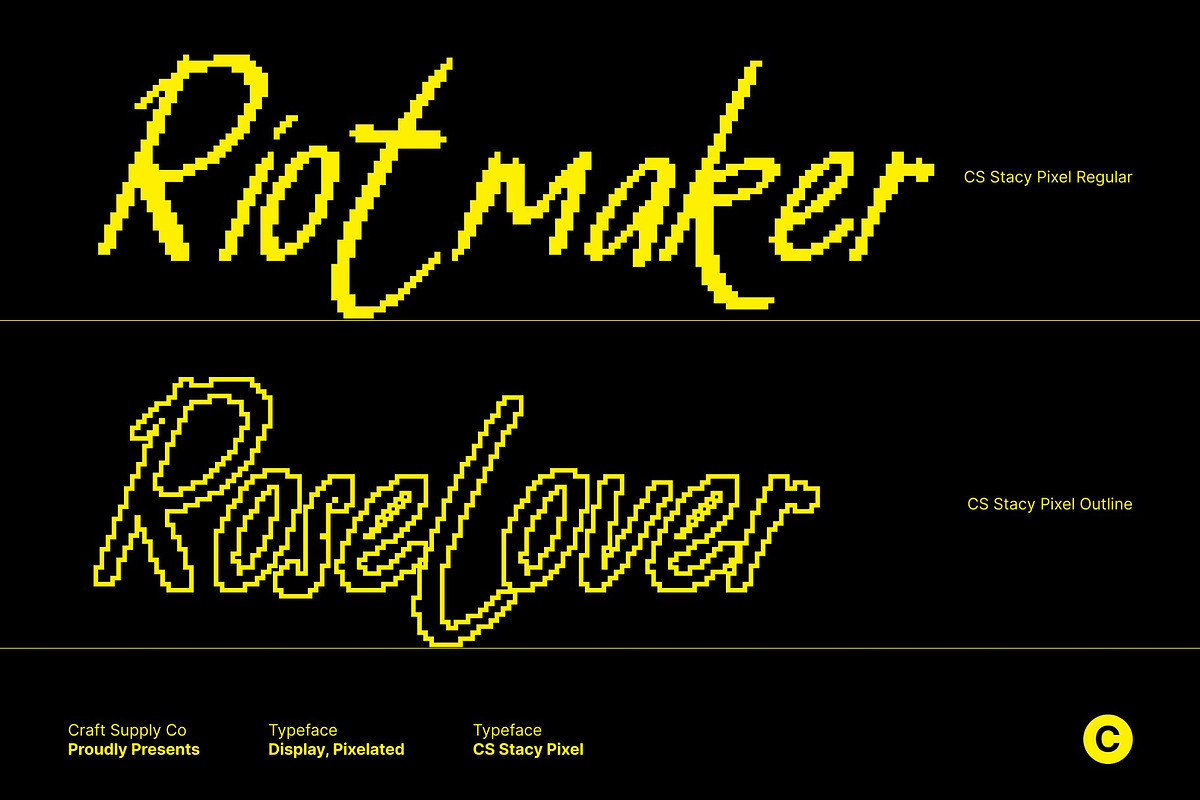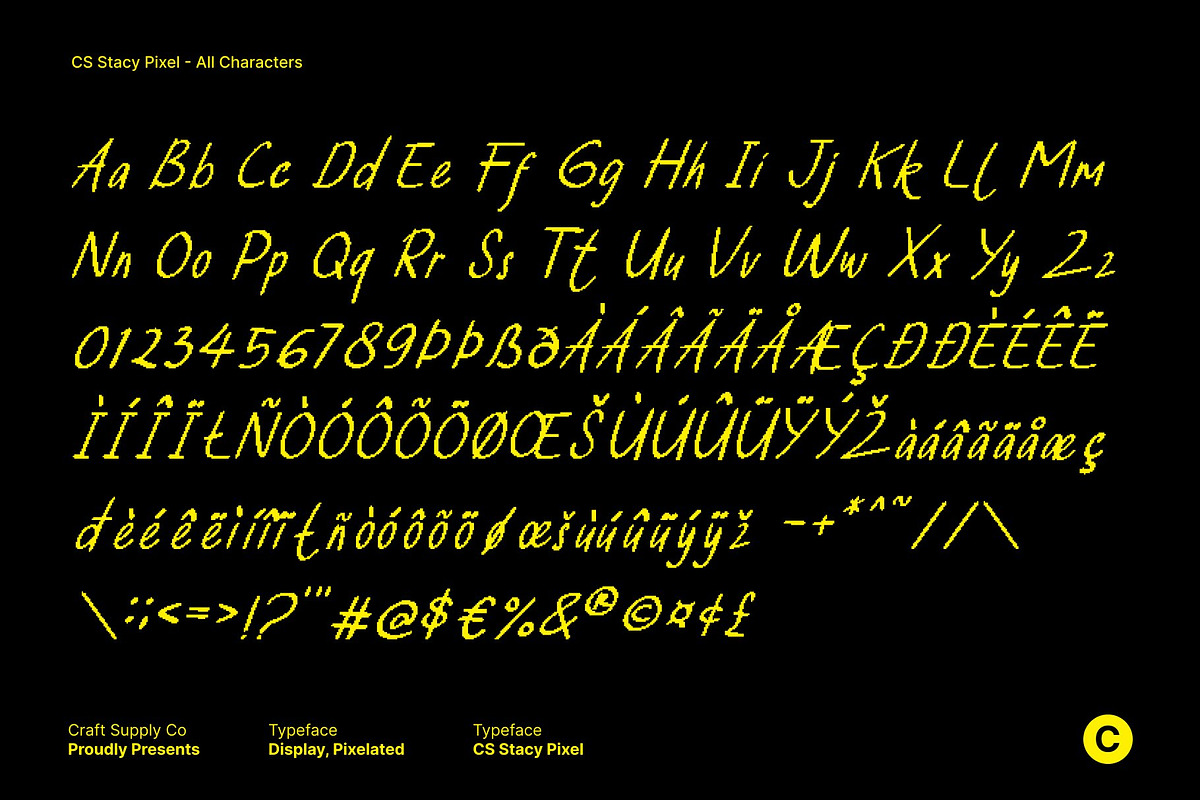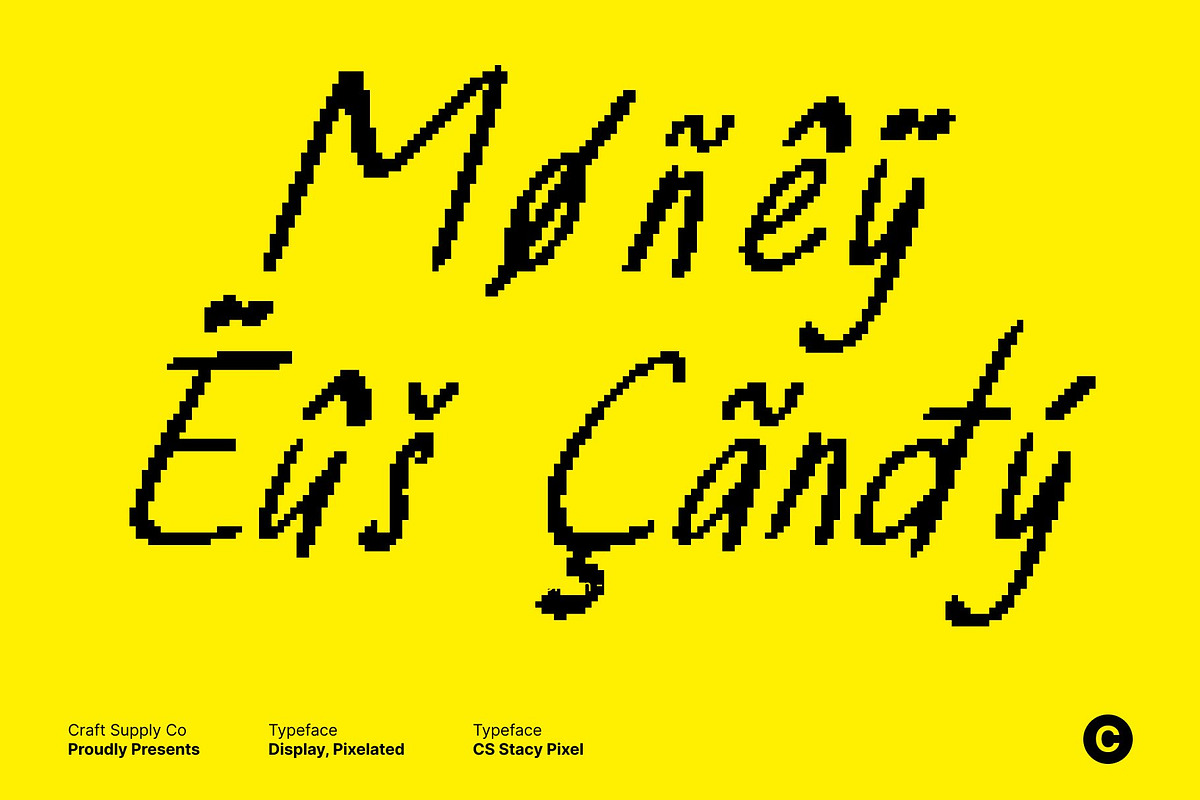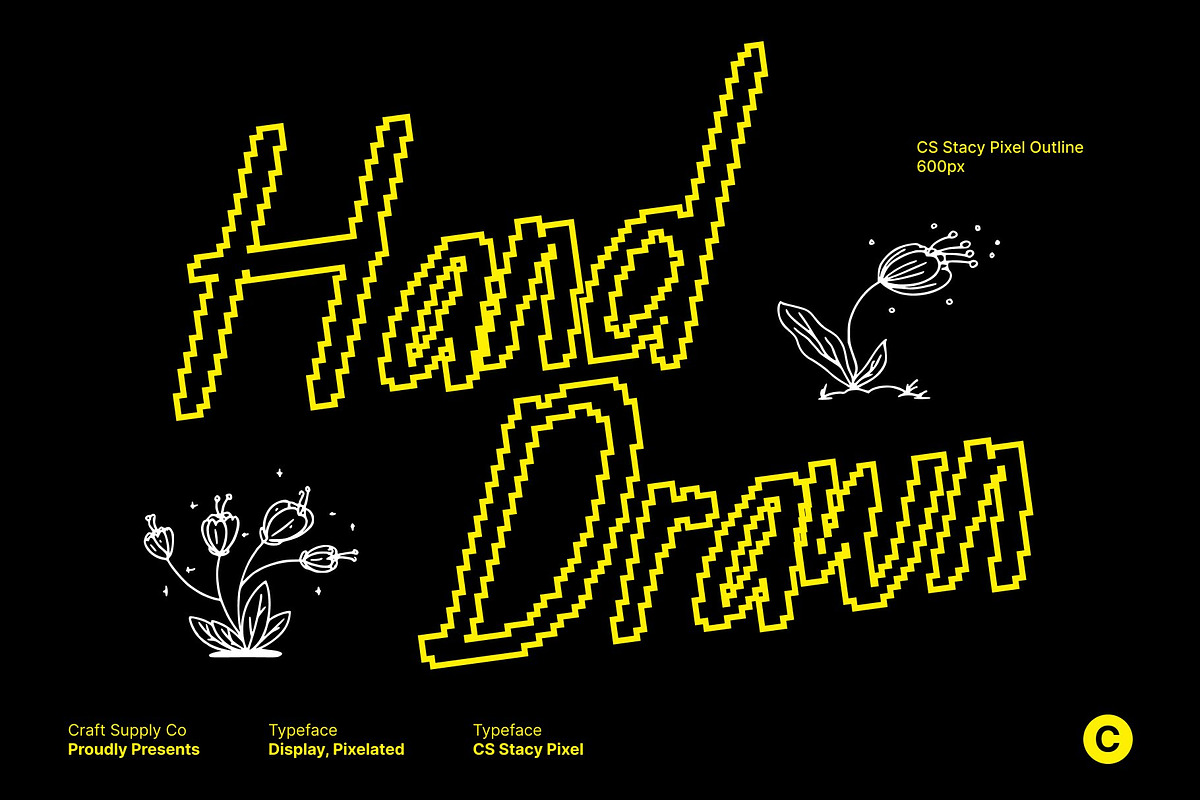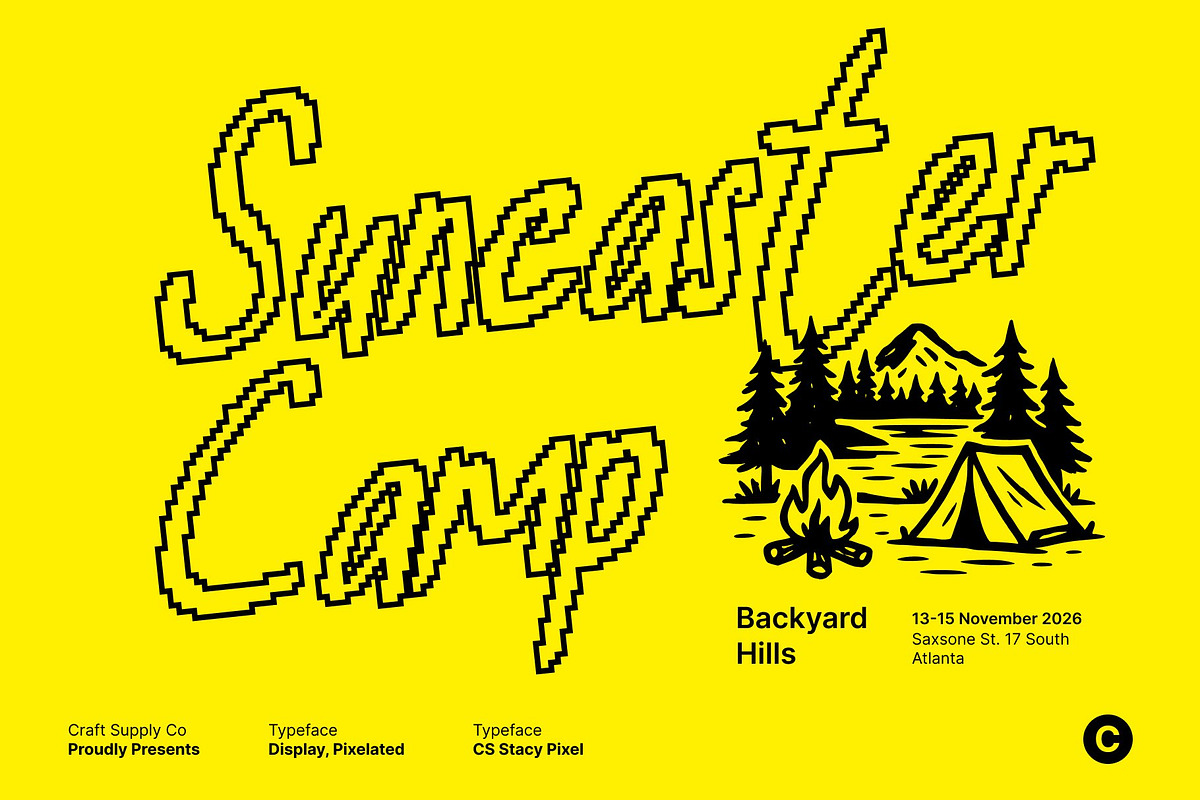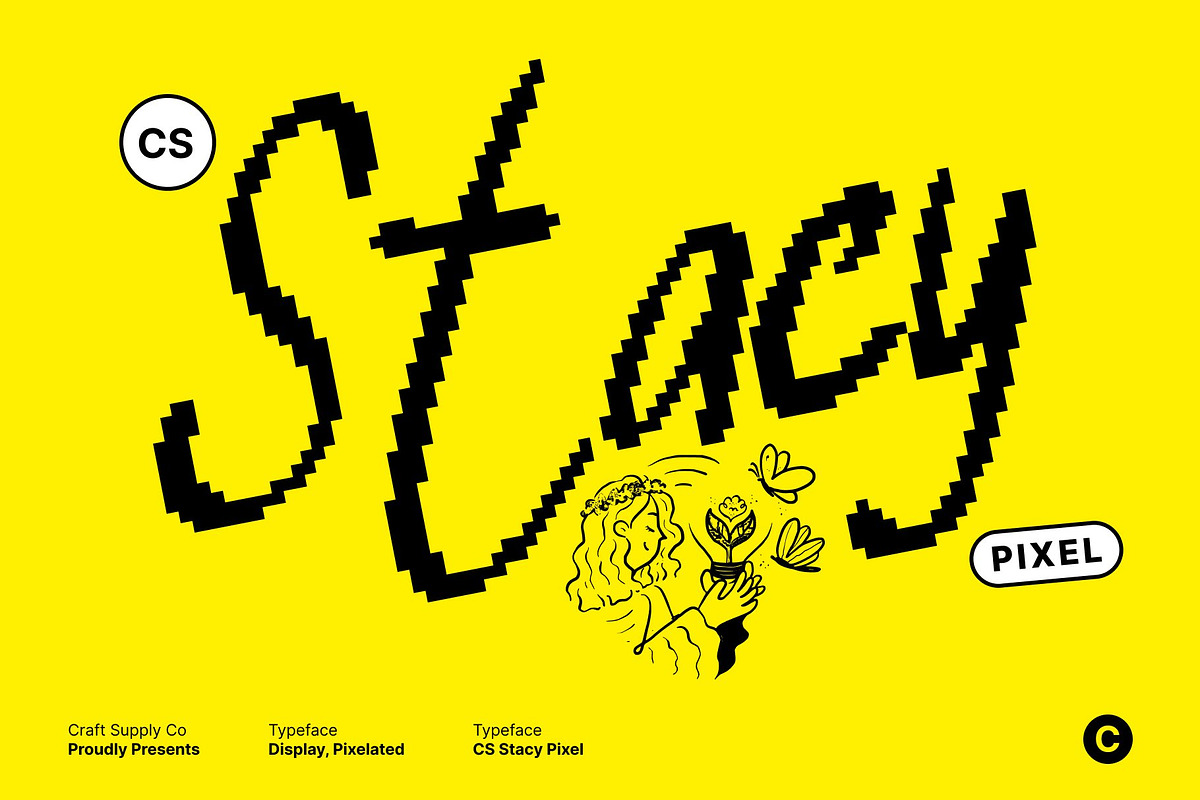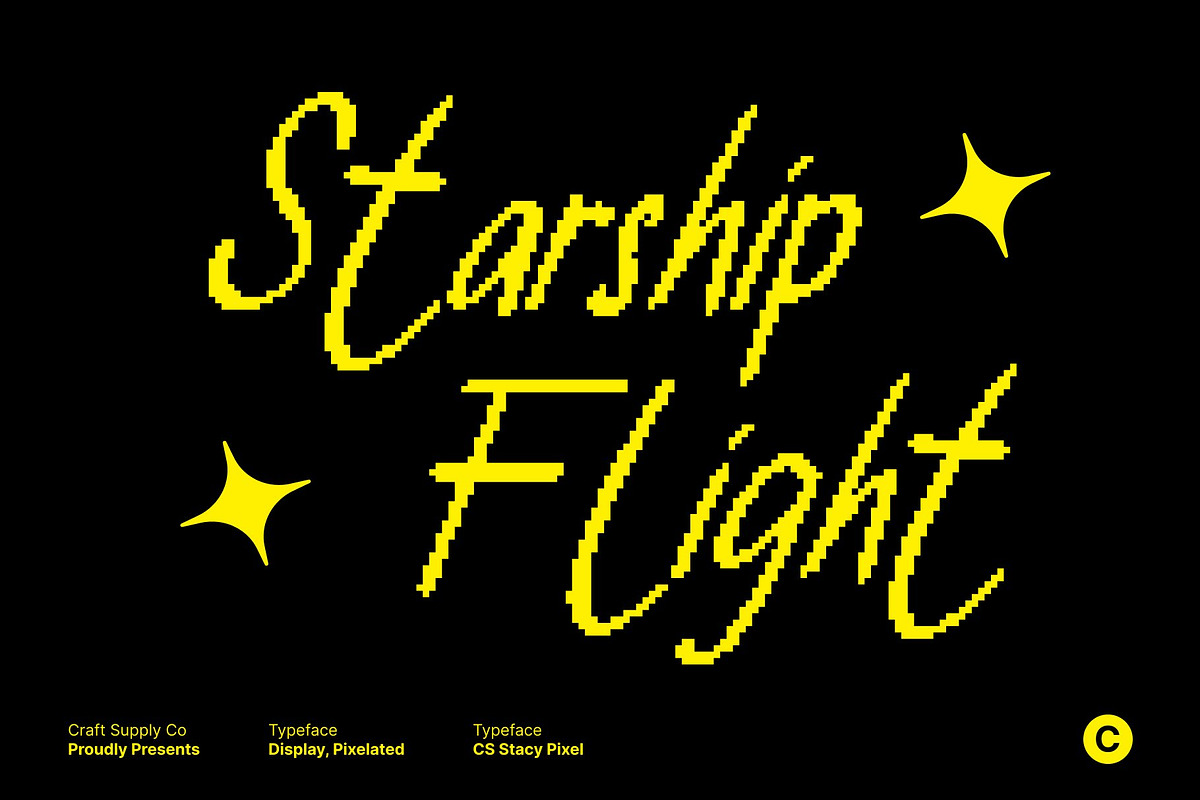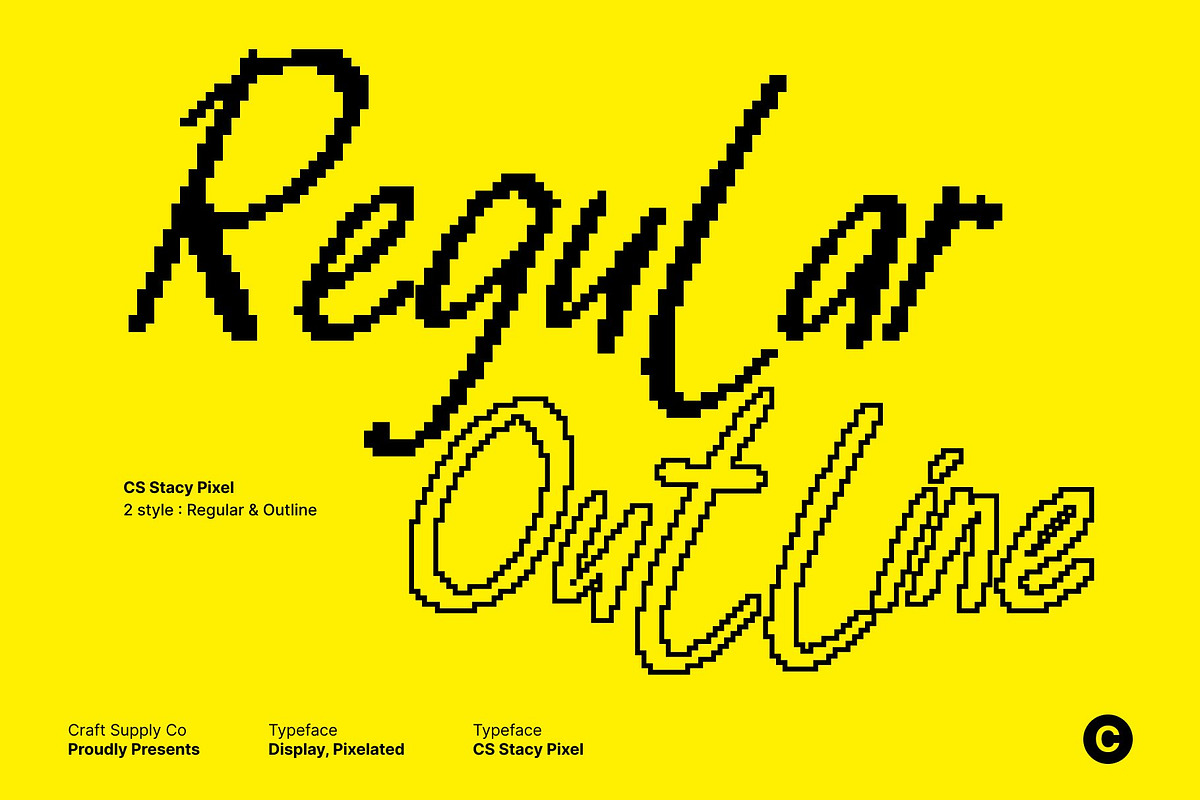
CS Stacy Pixel
CS Stacy Pixel – Hand-Drawn Font with Organic Character
Organic Hand-Drawn Style Meets Playful Pixel Energy This is an organic hand-drawn font that blends the charm of handmade lettering with eye-catching pixel style. Its expressive strokes and natural imperfections are infused with subtle pixel-inspired details, creating a unique fusion of warmth and digital nostalgia. The result is a font that feels lively, textured, and full of personality perfect for designs that want both authenticity and retro flair.
Unique Handmade Character with Retro Digital Twist Featuring irregular strokes and playful shapes, this font radiates individuality while embracing a nostalgic pixel aesthetic. The handcrafted forms bring approachability and creativity, while the pixel influence adds a fun, game-inspired edge. This balance makes every word feel personal yet artistic yet digitally vibrant.
Perfect for Fun Digital Designs and Retro Concepts This font shines in projects that celebrate creativity and visual excitement. It’s ideal for retro-themed posters, pixel-inspired branding, gaming graphics, fun packaging, social media visuals, and nostalgic digital layouts. Its eye-catching style ensures your message stands out with playful confidence and vintage tech charm.
Expressive, Nostalgic, and Visually Memorable Whether used for branding, editorial highlights, merchandise, or decorative displays, delivers a distinctive handmade vibe enhanced by retro pixel energy. Its organic yet digital personality makes every design feel fun, memorable, and full of creative spirit a perfect choice for projects that embrace both nostalgia and modern expression.